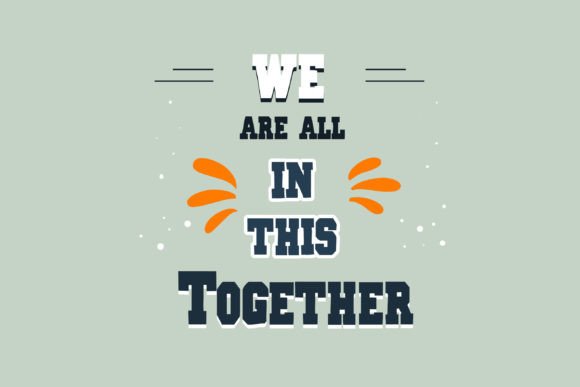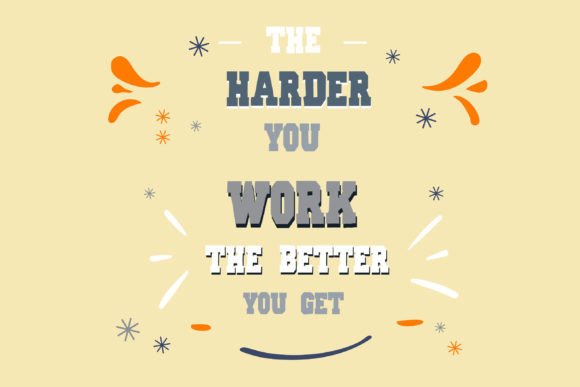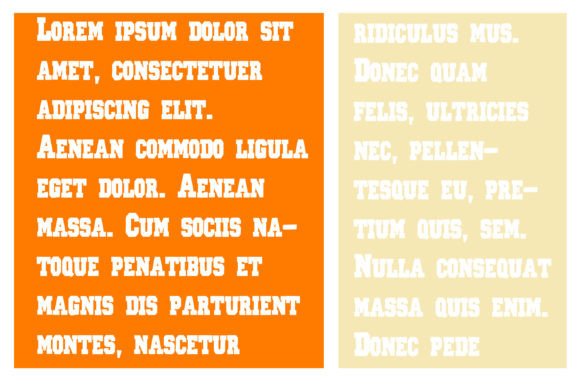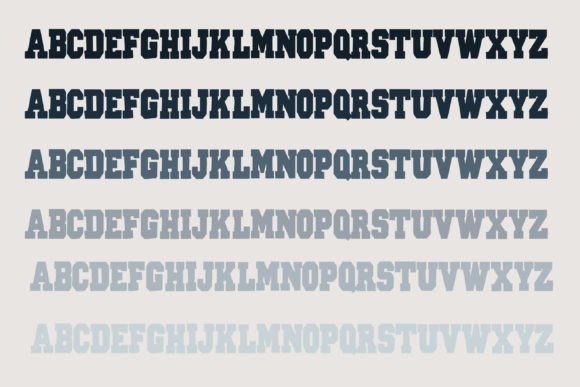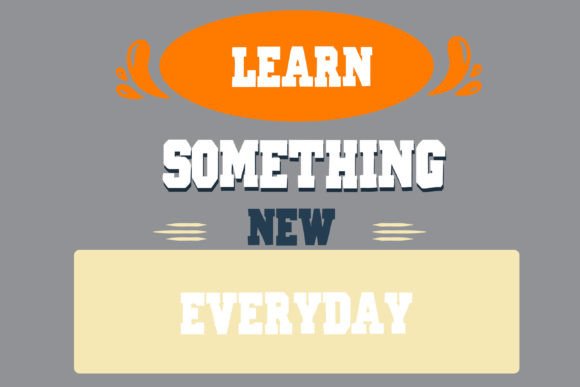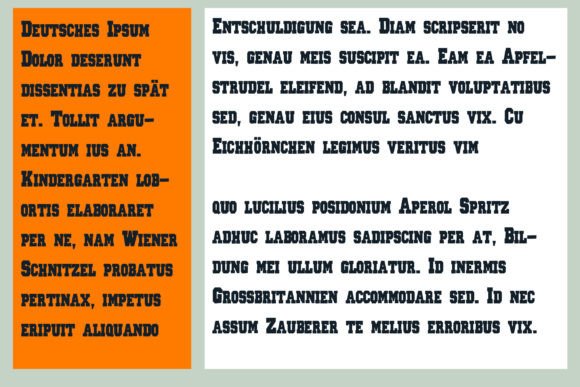
Varsity Font
VARSITY FONT SPECIMEN
Varsity is a cool hand-crafted yet traditional-looking slab serif font. This original look will appeal to a wide range of crafty ideas, from letterheads and titles, to stationery.